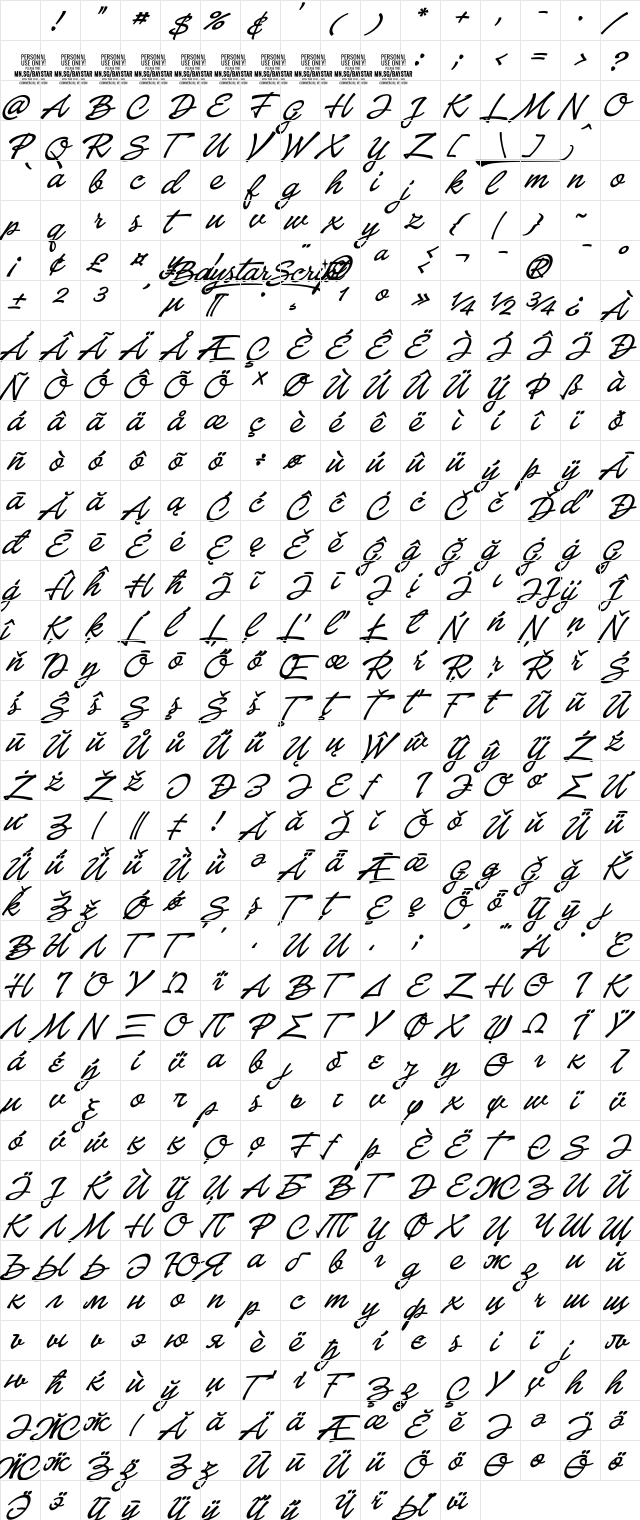
Complete Baystar Script PERSONAL USE ONLY Medium PERSONAL USE ONLY Regular glyph index. Displaying only characters natively supported by Baystar Script PERSONAL USE ONLY Medium PERSONAL USE ONLY Regular font.
Baystar Script PERSONAL USE ONLY Medium PERSONAL USE ONLY flows with the natural rhythm of handwritten lettering, making it ideal for designs that call for warmth and personal expression.
Font Pairing: Combine Baystar Script PERSONAL USE ONLY Medium PERSONAL USE ONLY with a simple geometric sans for maximum contrast - the tension between flowing curves and clean structure is a classic typographic pairing.
Pro Tip: Use Baystar Script PERSONAL USE ONLY Medium PERSONAL USE ONLY for short runs of text - names, titles, or taglines. Extended body copy in script faces tires the eye quickly.